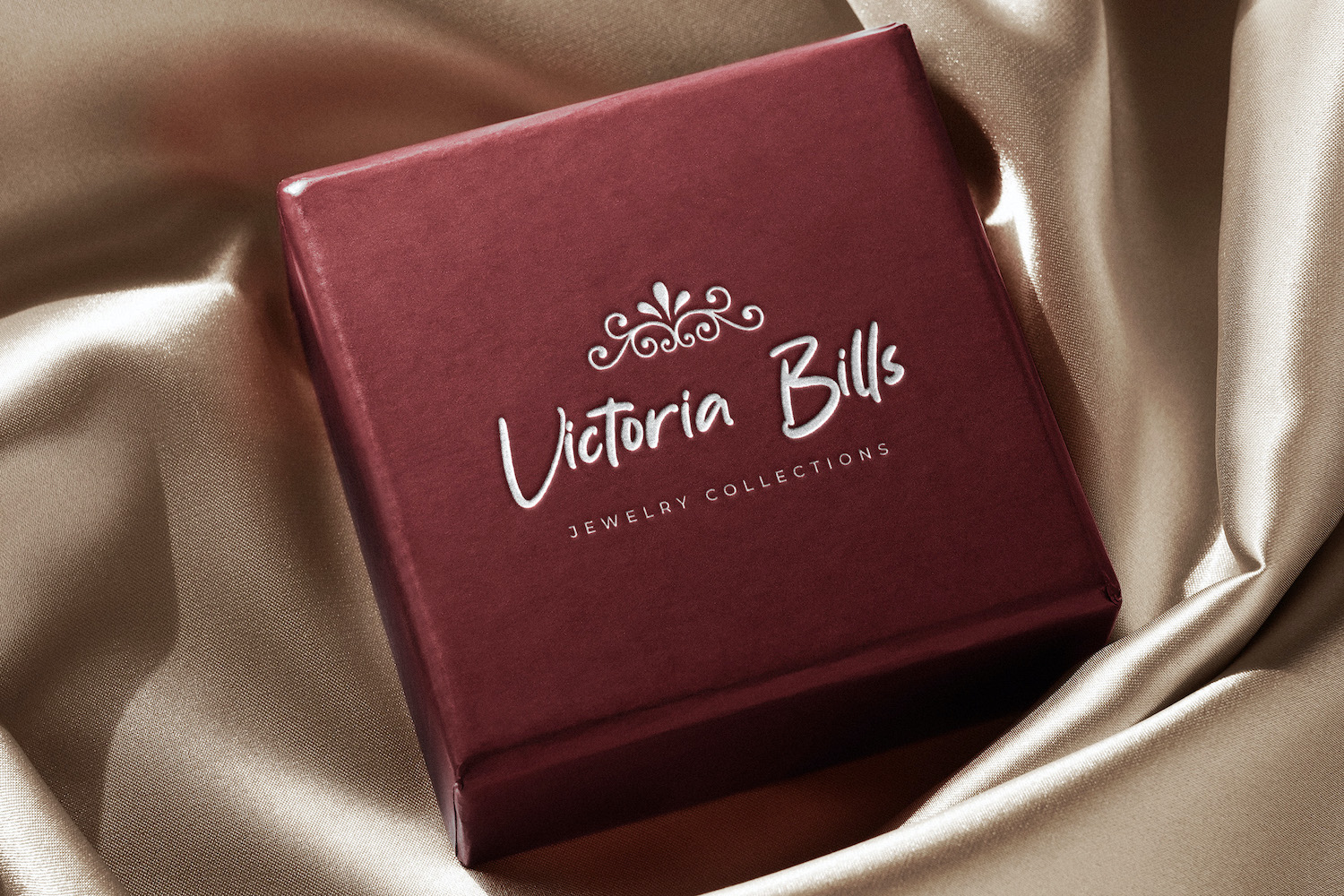
Sabtu Minggu is a warm, handwritten script that feels like real ink on paper—soft, human, and naturally imperfect in the best way. The strokes have a relaxed rhythm with slightly varying pressure, giving each word a personal, “written-by-hand” presence rather than a manufactured look.
The writing flow is smooth and friendly, with letters that lean into a casual connection—enough continuity to read as script, but still loose enough to keep a spontaneous, everyday charm. Its forms are rounded and approachable, with tall ascenders and open shapes that keep names and short phrases feeling airy instead of heavy. This font sits in that sweet spot between manual and tidy: it looks intentionally crafted, yet it still carries small quirks that make it feel alive. Visually, it builds emotion fast—comforting, intimate, and slightly romantic—perfect for messages that want to feel sincere rather than corporate.
Sabtu Minggu shines the most when it’s allowed to breathe: headlines, names, short quotes, packaging accents, and overlay text on photography. For the cleanest results, use it at medium to large sizes (roughly 24–72 pt for print, or 28–90 px for digital) so the natural curves and stroke personality stay clear. Ideal personal projects include wedding or event stationery, greeting cards, journal covers, small-brand logos, lifestyle social posts, handmade product labels, and personal signature-style branding.